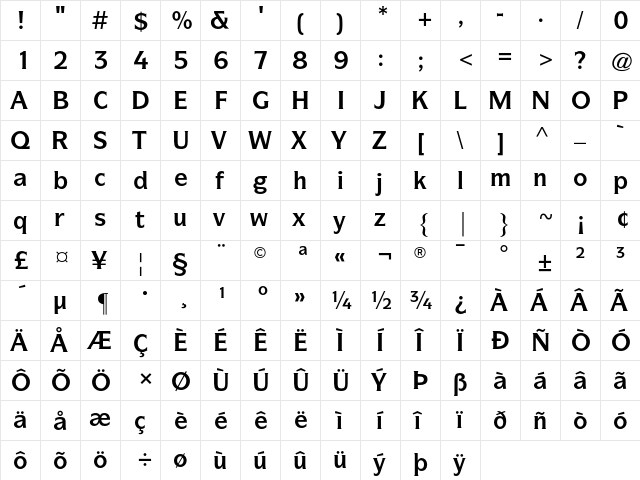
ITC Symbol Bold
Design Context for ITC Symbol Typeface
ITC Symbol offers clean, dependable letterforms without strong stylistic allegiance, making it a practical choice for designers who need flexibility. The heavy weight commands attention and anchors typographic hierarchies.
Pro Tip: Pair ITC Symbol with a font of contrasting weight or personality to build a more expressive typographic hierarchy.